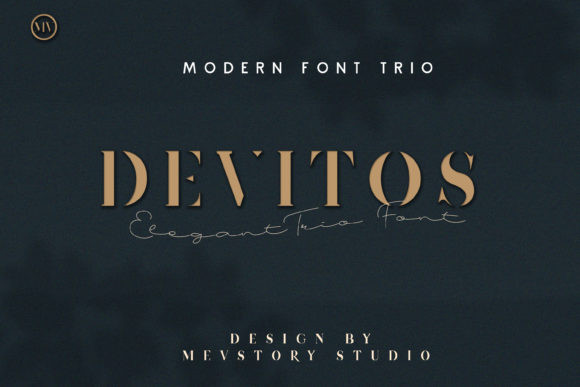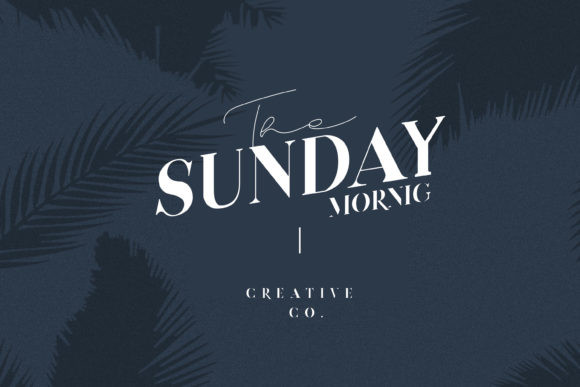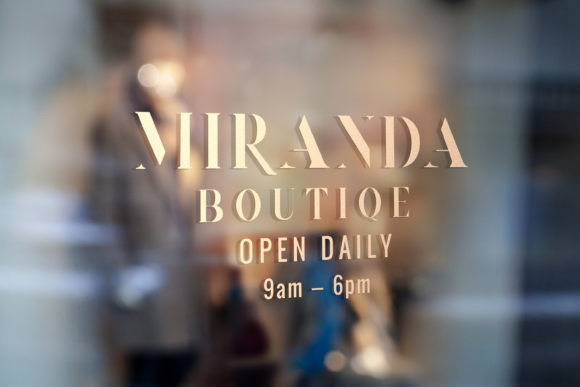
Devitos Font
Devitos is a modern, elegant and creative serif font. With its neat and beautiful arrangement of letters, this typeface will look outstanding in both formal and non-formal designs.